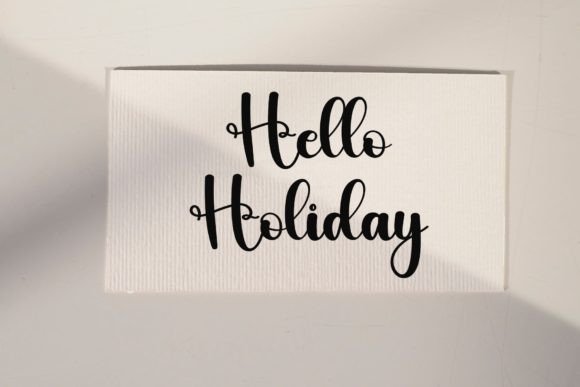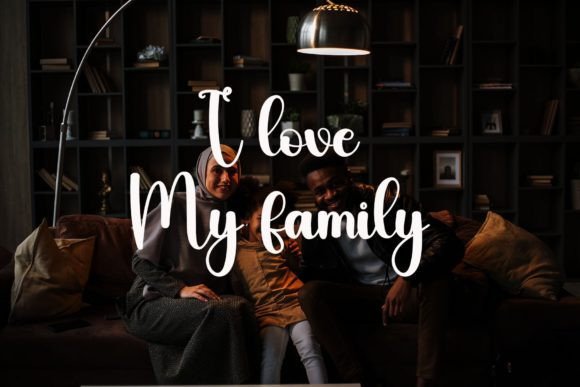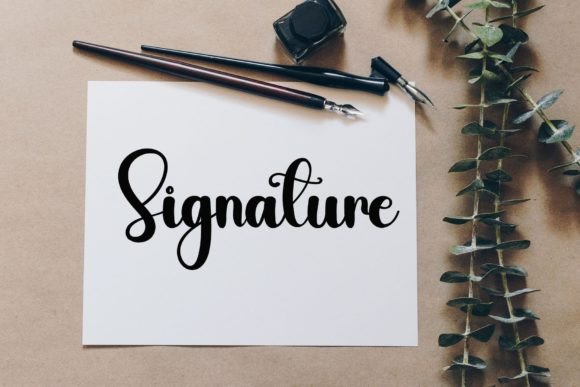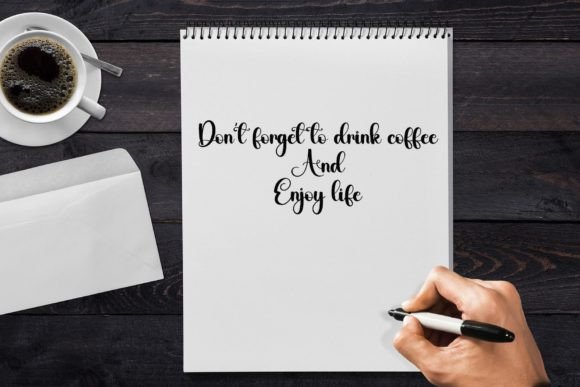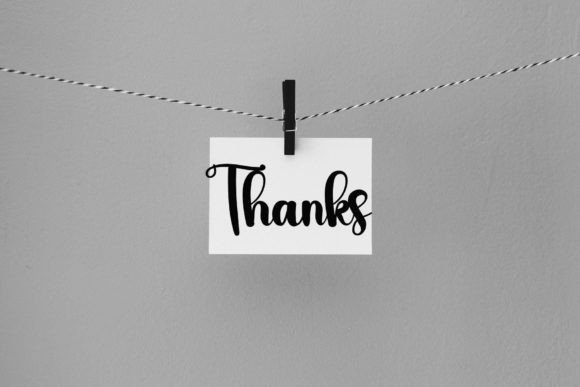
Chilly Font
About Chilly Font
Chilly is a delightful and playful handwritten font that exudes a sense of fun and friendliness. Its lively and approachable style makes it a perfect choice for a wide range of creative projects. By using Chilly, you can transform any design idea into a true standout, adding a touch of whimsy and charm to your creations.
The font’s friendly and inviting demeanor adds personality to your text, making it engaging and visually appealing. Whether you’re working on greeting cards, social media posts, or playful branding materials, Chilly infuses your designs with a sense of joy and creativity.
Chilly’s unique charm inspires creativity and allows you to explore various design possibilities. Its casual and relaxed vibe creates a warm and inviting atmosphere, making your audience feel connected and at ease. With Chilly, you can create lovely designs that leave a lasting impression, conveying your message with a touch of friendliness and sincerity.
Embrace the playful and friendly nature of Chilly and let it inspire your creative ventures. Whether you’re designing posters, invitations, or any other project that needs a fun and approachable touch, this font is sure to bring your ideas to life. Let Chilly add a sprinkle of joy to your designs and watch as they come alive with creativity and warmth.